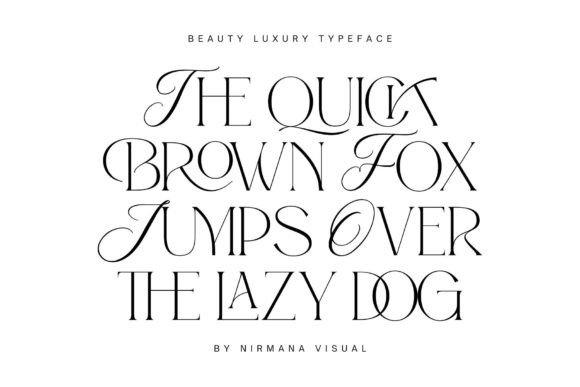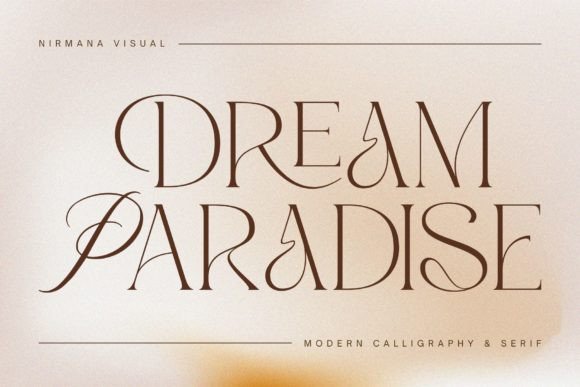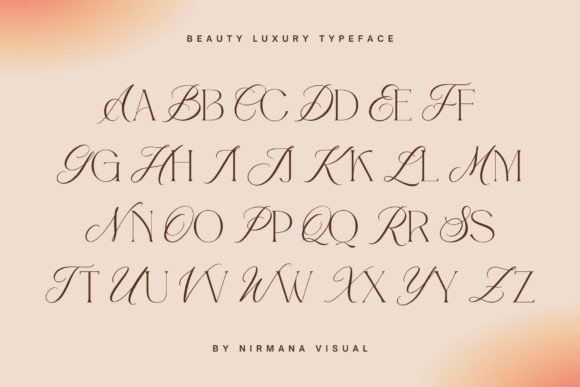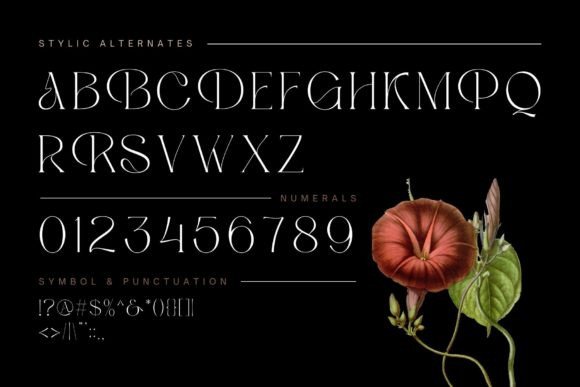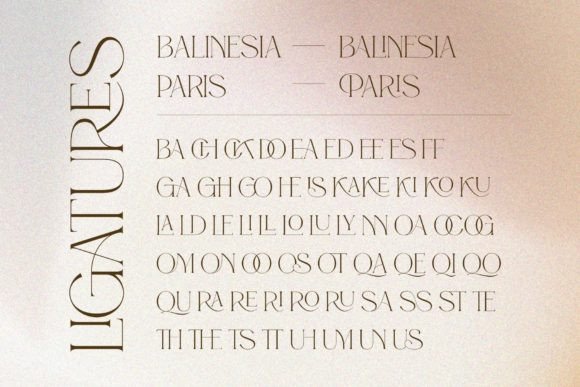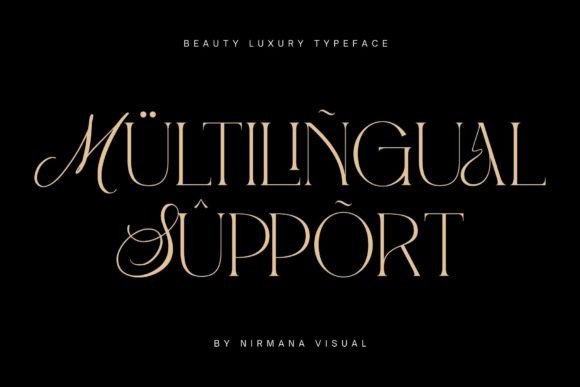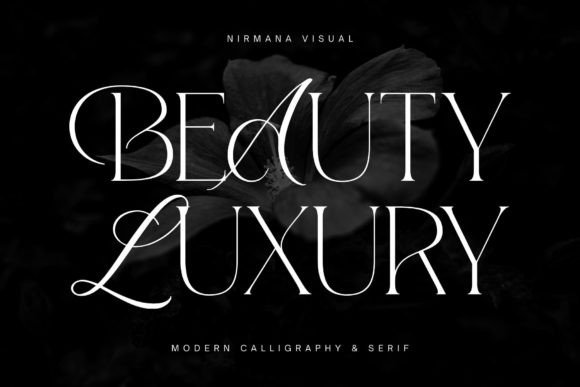
Introducing Beauty Luxury Font: Elevate Your Designs with Elegance
Are you a designer or crafter looking for a font that exudes luxury and sophistication? Look no further than Beauty Luxury Font, a stunning contemporary display font designed to bring typographic harmony to a wide range of design projects. From logos and branding to social media posts, advertisements, and product designs, Beauty Luxury Font is the perfect choice for those who want to add a touch of elegance to their work.
What Makes Beauty Luxury Font Stand Out?
Beauty Luxury Font is more than just a font – it’s a design statement. Its unique and beautiful typographic style is carefully crafted to provide a sense of luxury and refinement, making it perfect for high-end designs. The font’s contemporary display style ensures that your designs will stand out from the crowd, while its versatility makes it suitable for a variety of applications.
Key Features of Beauty Luxury Font
- Contemporary Display Style: Beauty Luxury Font boasts a modern and sleek design that’s perfect for making a statement.
- Beautiful Typographic Harmony: The font’s carefully crafted typographic style ensures that your designs will have a cohesive and sophisticated look.
- Versatility: Use Beauty Luxury Font for a wide range of design projects, from logos and branding to social media posts, advertisements, and product designs.
- Elegance and Sophistication: Add a touch of luxury to your designs with Beauty Luxury Font’s refined and elegant style.
Why Choose Beauty Luxury Font?
As a designer or crafter, you know how important it is to have a font that can elevate your designs and make them stand out. Beauty Luxury Font offers a unique combination of style, elegance, and versatility, making it the perfect choice for those who want to create high-end designs. With Beauty Luxury Font, you can:
- Create stunning logos and branding that exude luxury and sophistication.
- Elevate your social media posts and advertisements with a touch of elegance.
- Design beautiful product packaging and labels that stand out on store shelves.
- Add a touch of refinement to your website and digital designs.
Tips and Tricks for Getting the Most Out of Beauty Luxury Font
- Experiment with different font sizes: Beauty Luxury Font looks great in large display sizes, but it can also be used for smaller text sizes.
- Pair it with other fonts: Try pairing Beauty Luxury Font with other fonts to create a unique and interesting typographic combination.
- Use it consistently: Use Beauty Luxury Font consistently throughout your design to create a cohesive and sophisticated look.
| Author | Sigit Dwipa |
Beauty Luxury Font is a stunning contemporary display font that’s perfect for designers and crafters who want to add a touch of luxury and sophistication to their designs. With its beautiful typographic harmony, versatility, and elegance, Beauty Luxury Font is the perfect choice for a wide range of design projects. Download Beauty Luxury Font today and elevate your designs to the next level!